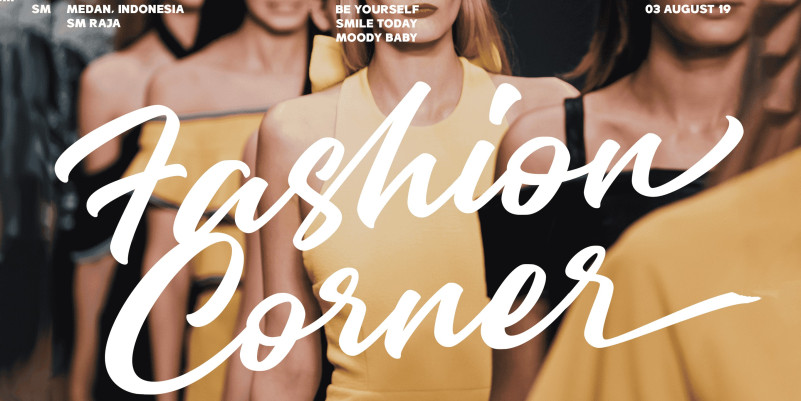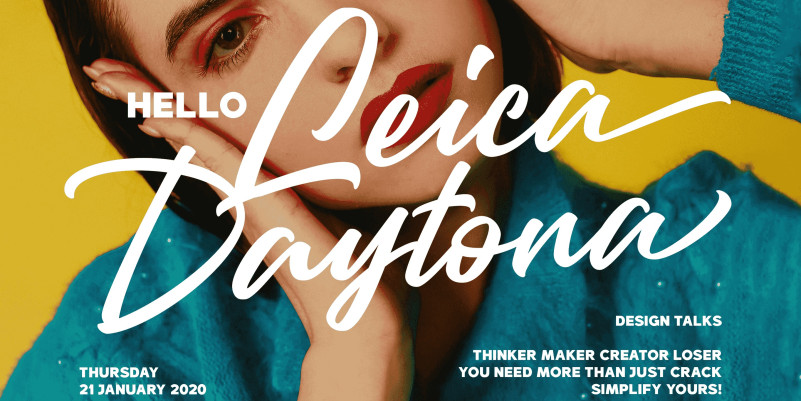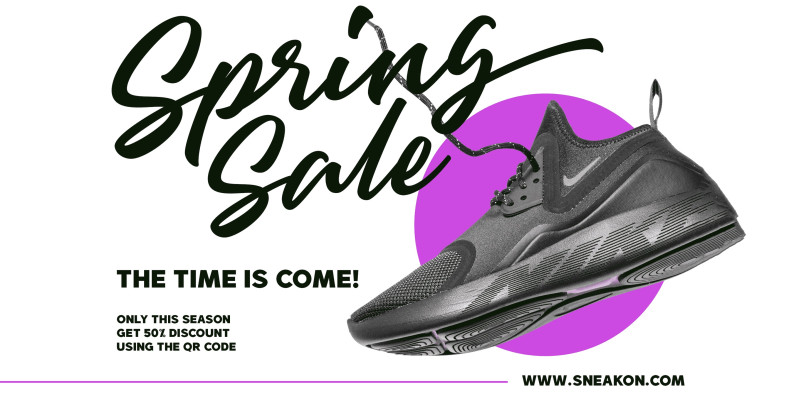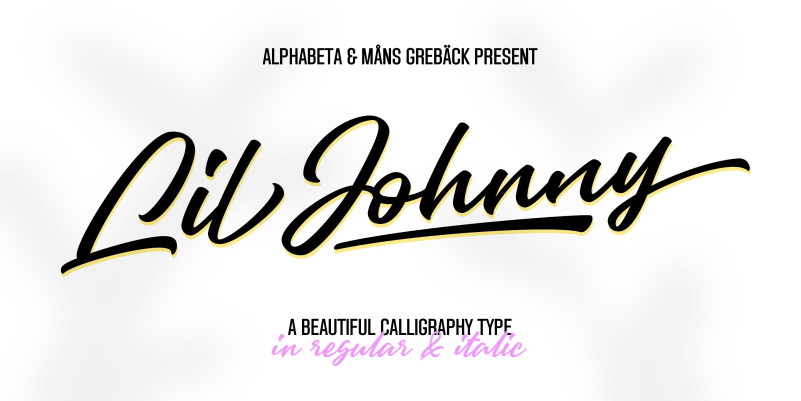
Lil Johnny Font
Lil Johnny Script Font is a new modern script typeface created by Mans Greback with an irregular base line. Drawn and created between 2020 to 2022, this logotype lettering has a vivid style and a strong personality. It has an optimistic look, a wild movement and big expressive capital letters. Use underscore _ anywhere in a word to make an underline. Example: Love_letter Use multiple underscores to make different swashes. Example: Base_____ball Use numbersign # after any letter to make a swash. Example: Welcome# Summer# (Download required.) The Lil Johnny typeface family consist of Regular and Italic. The font is built with advanced OpenType functionality and has a guaranteed top-notch quality, containing stylistic and contextual alternates, ligatures and more features; all to give you full control and customizability. It has extensive lingual support, covering all Latin-based languages, from Northern Europe to South Africa, from America to South-East Asia. It contains all characters and symbols you’ll ever need, including all punctuation and numbers.